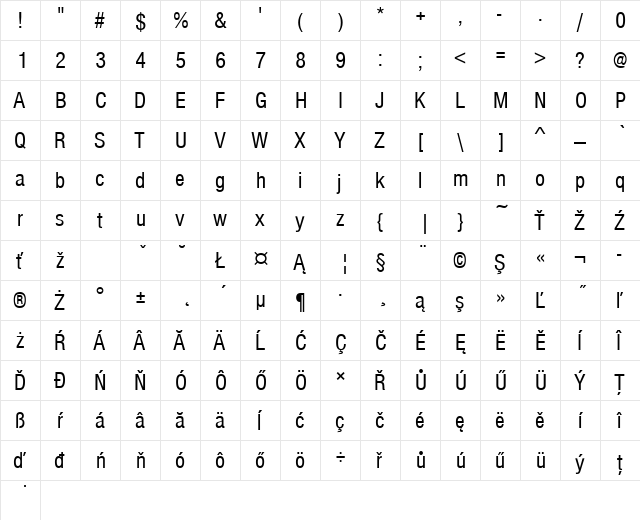
NimbusSanDEECon Regular
Design Context for NimbusSanDEECon Typeface
NimbusSanDEECon offers clean, dependable letterforms without strong stylistic allegiance, making it a practical choice for designers who need flexibility.